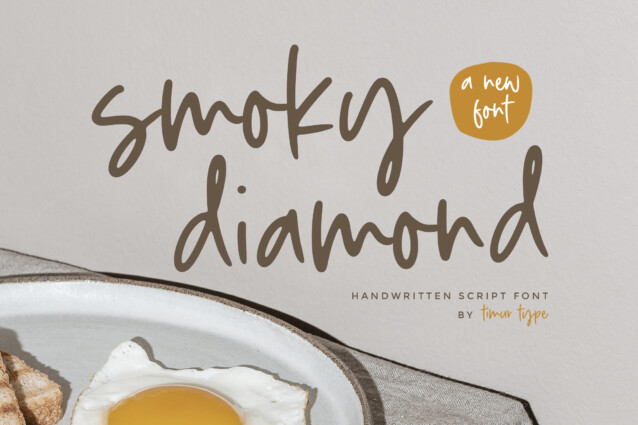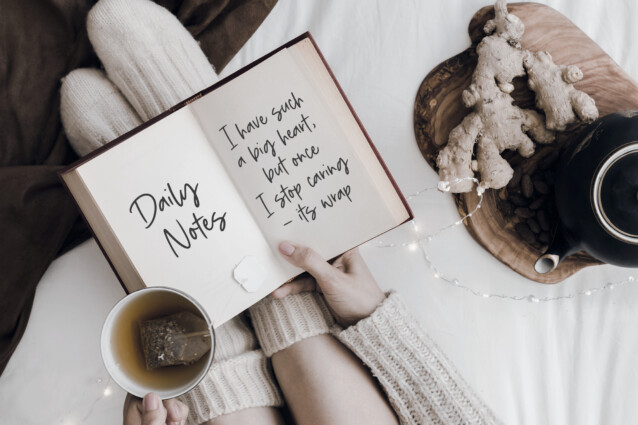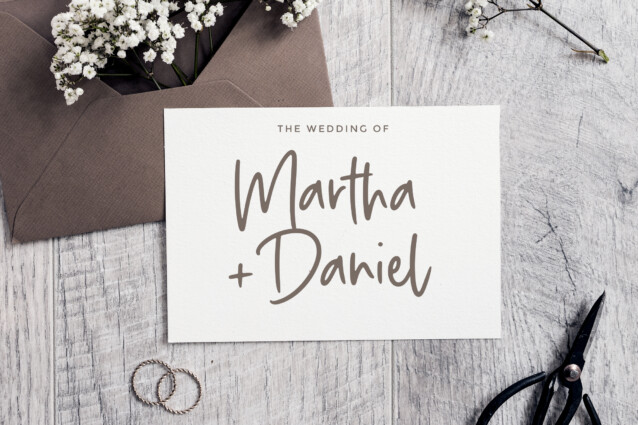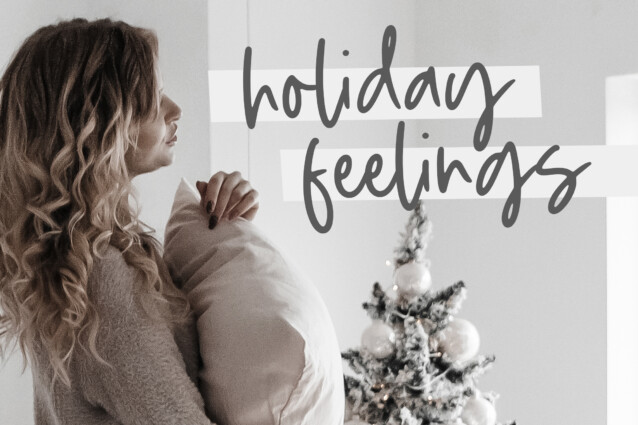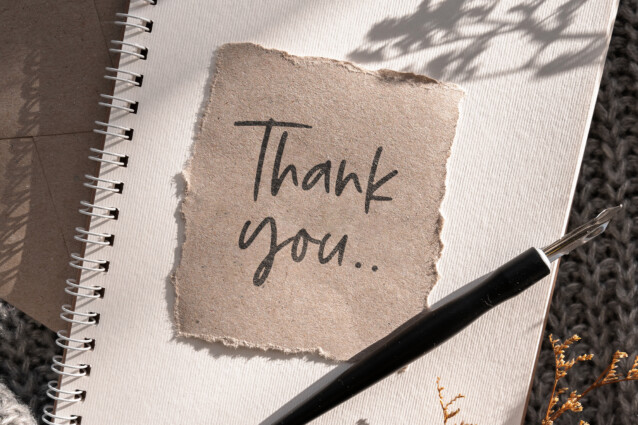
Smoky Diamond Font
Smoky Diamond Font is a unique and distinctive typeface that adds a touch of edginess and personality to your designs.
Designed with meticulous attention to detail, this font captures the charm and authenticity of handwritten script while infusing it with a hint of sharpness and edge. The sharp tip adds a bold and dynamic element, lending a sense of energy and excitement to your typography.
Perfect for logo design, branding projects, social media graphics, and various print materials, this handwritten script font stands out with its unconventional style. Its sharp tip creates a playful contrast against the smooth and flowing strokes, evoking a sense of spontaneity and modernity.
Smoky Diamond Font  also multilingual support.